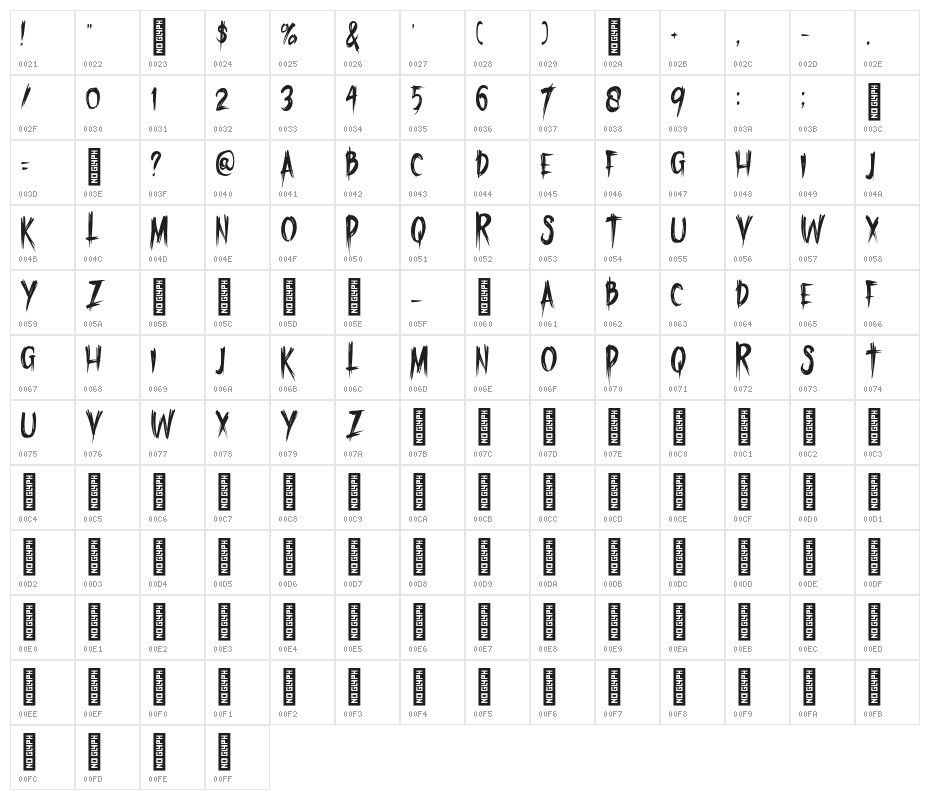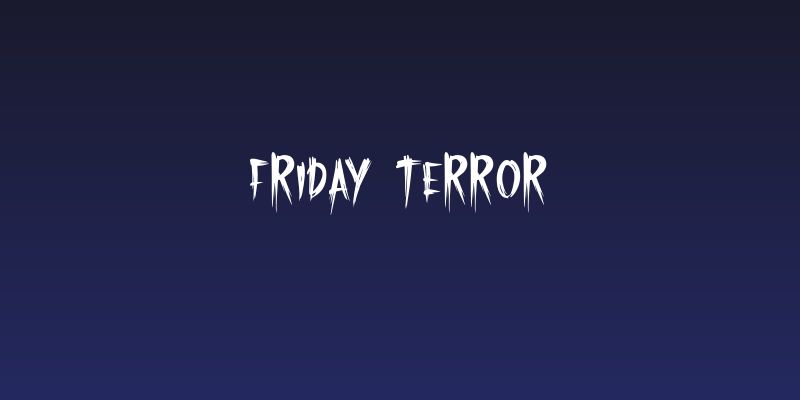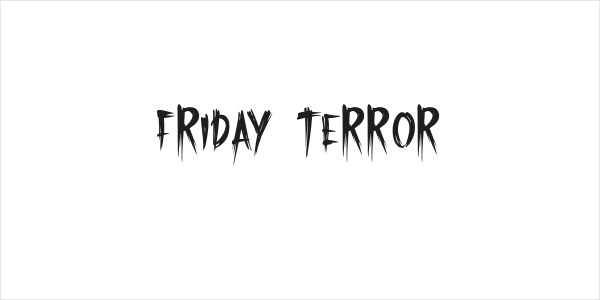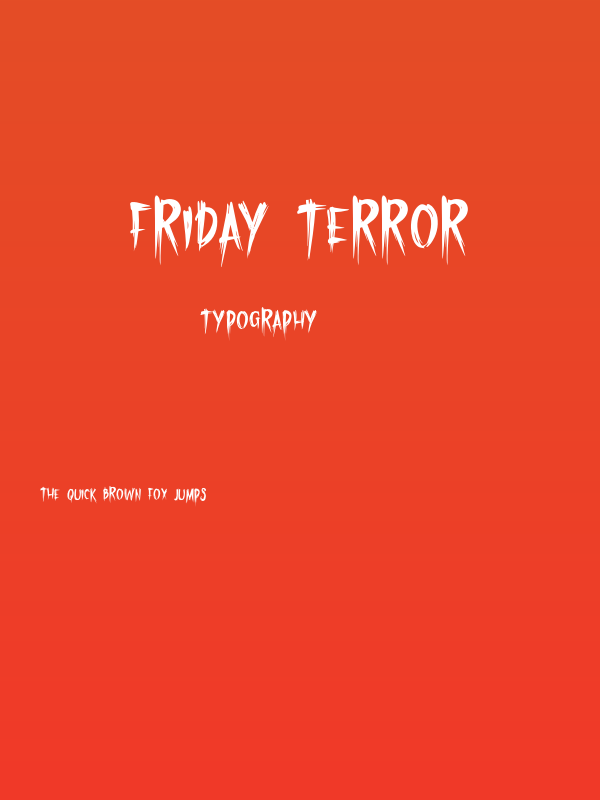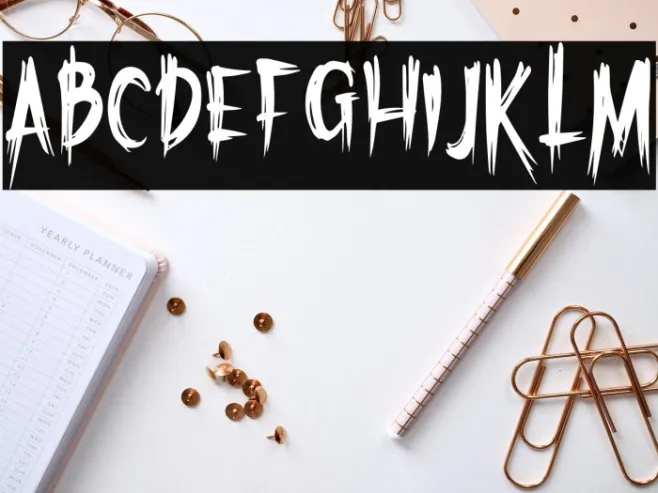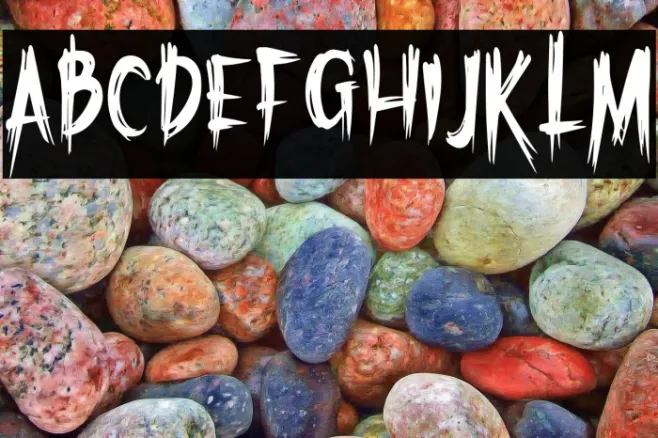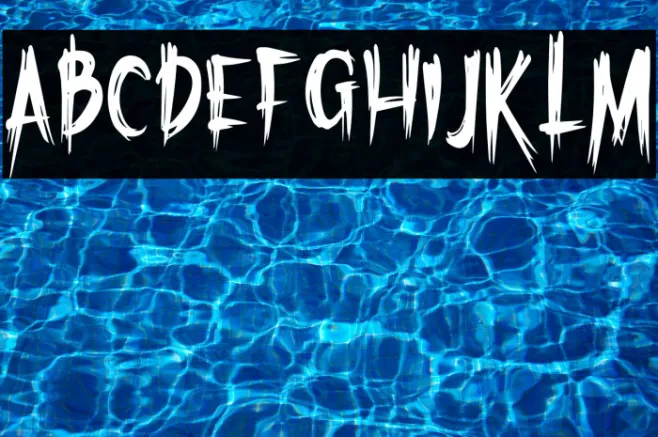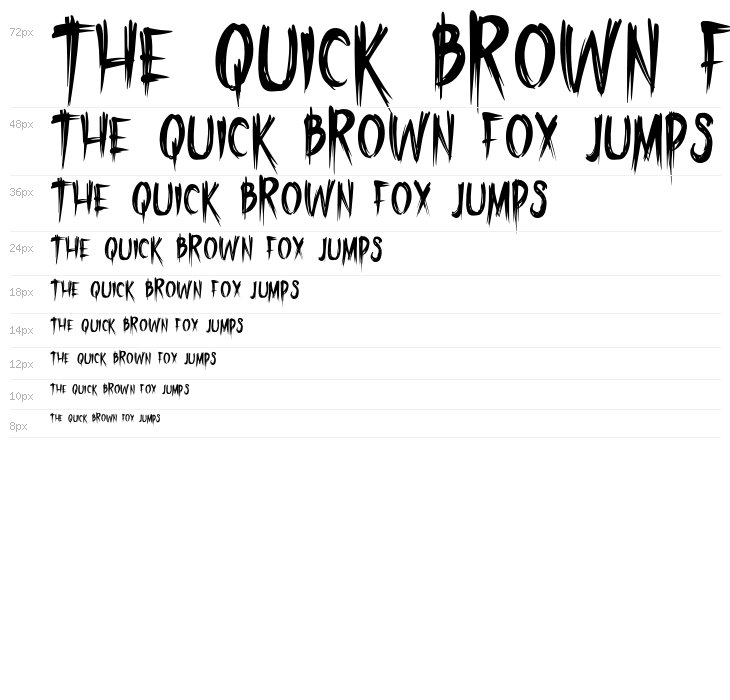
Friday Terror Font
Friday Terror Description
This font features a dramatic and edgy style, characterized by sharp, jagged edges and a distressed appearance. The letters appear as if they have been scratched or clawed, giving a sense of urgency and intensity. The uppercase and lowercase letters maintain a consistent theme, with exaggerated strokes and uneven lines that add to the chaotic aesthetic. Numbers and special characters follow the same design principles, ensuring a cohesive look across all elements. This font is ideal for projects that require a bold and impactful visual statement.
| Use Case | Headlines, Posters, Branding |
| Proposed Projects | Perfect for horror-themed posters, Halloween invitations, edgy branding, or any project needing a bold, intense visual impact. |